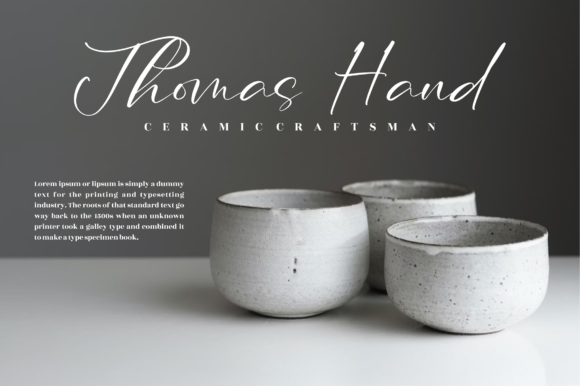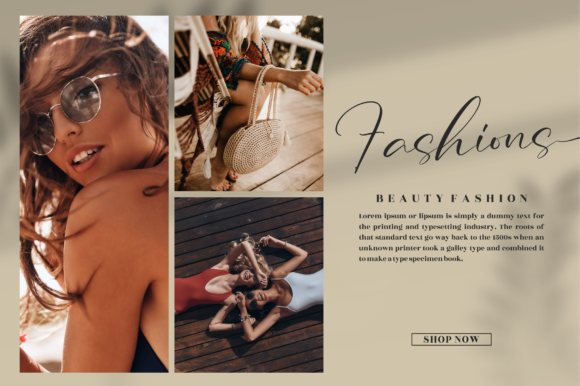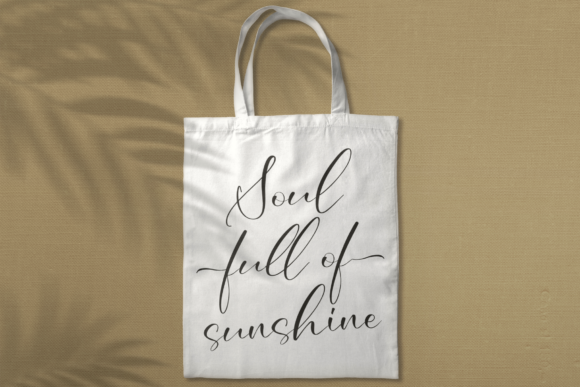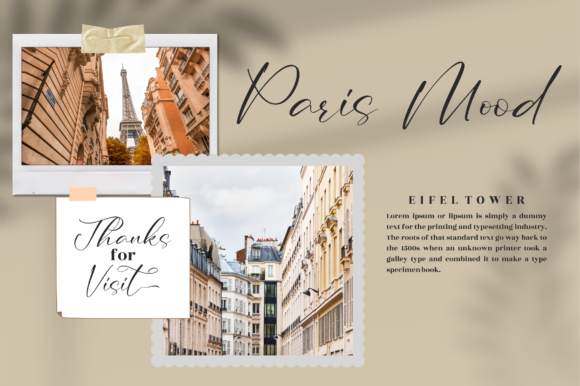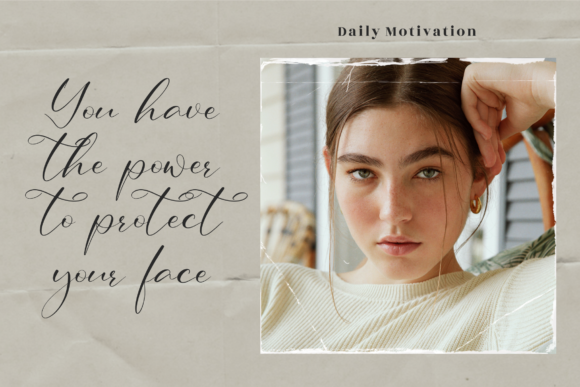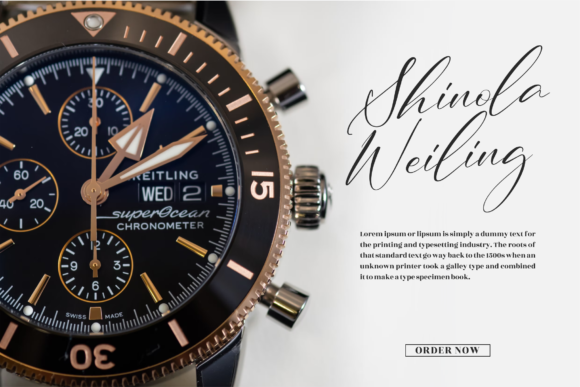
Unleash Your Creativity with Beautiful Victoria Font
Have you ever found yourself staring at a blank page, trying to bring your creative idea to life? The blank space can be intimidating, but sometimes all it takes is the right tool to get those creative juices flowing. That’s where the Beautiful Victoria Font comes in – a lovely script font that’s sure to add a touch of magic to your designs.
Beautiful Victoria Font is a charming, playful font featuring characters that seem to dance along the baseline. With its PUA encoding, you can access all glyphs and swashes with ease, making it a valuable addition to any designer’s toolkit. Whether you’re a seasoned pro or just starting out, Beautiful Victoria Font is sure to help you create something truly special.
Beautiful Victoria Font Key Features
- Font Size: 1,000+ glyphs, including letters, numbers, punctuation, and special characters
- Unique Characteristics: Elegant, cursive script with a touch of vintage charm, perfect for creative and romantic designs
Beautiful Victoria Font Review
As a designer, I was excited to dive into the “Beautiful Victoria Font” and see what it had to offer. Here’s my honest review:
- Classic Elegance – The Beautiful Victoria Font exudes a timeless charm, making it perfect for formal invitations, wedding designs, and other high-end projects.
- Beautiful Script – The font features a beautiful, flowing script that’s perfect for adding a touch of sophistication to your designs.
- High-Quality Rendering – The font renders beautifully at various font sizes and styles, making it a great choice for both digital and print projects.
- Limited Font Variations – While the font itself is beautiful, it’s a bit limited in terms of font variations. There are only a few styles to choose from, which may not be ideal for projects that require a lot of font flexibility.
- Not Ideal for Body Text – Due to its formal nature, the Beautiful Victoria Font may not be the best choice for body text, as it can be a bit difficult to read at smaller font sizes.
Overall, I think the Beautiful Victoria Font is a great choice for projects that require a touch of elegance and sophistication. While it may have some limitations, it’s a beautiful font that’s sure to impress. Just be mindful of its limitations and use it accordingly.
Use the Beautiful Victoria Font for elegant and sophisticated designs, such as:
– Luxury brand logos and packaging
– High-end marketing materials
For optimal results, use the Beautiful Victoria Font in combination with other elegant and refined design elements, such as cursive scripts and ornate graphics.